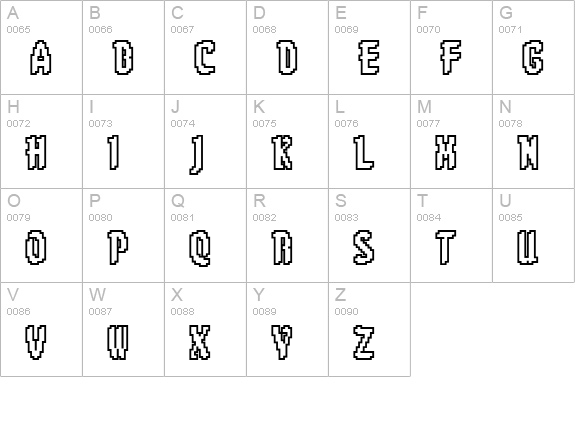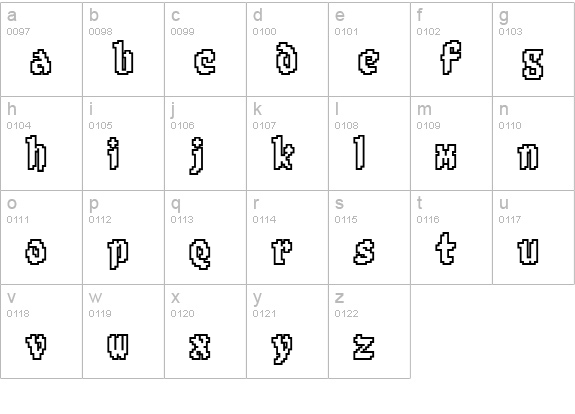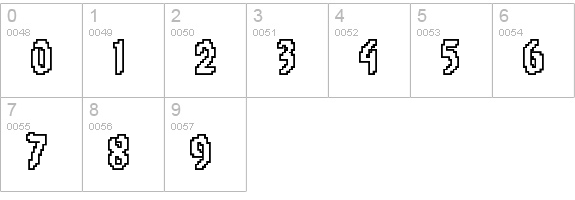
8-bit Limit O (BRK) Font Details
The 8-bit Limit O (BRK) font is a charming and nostalgic typeface that takes inspiration from classic video game graphics. With its pixelated design and retro aesthetic, this font is perfect for adding a touch of old-school flair to your projects. Whether you're creating game-inspired designs or looking to evoke a sense of nostalgia, the 8-bit Limit O (BRK) font is sure to impress. Best of all, this font is available for free download at FontsMarket.com, making it easily accessible for all your creative endeavors. Embrace the vintage charm of the 8-bit Limit O (BRK) font and transport your audience back to the golden age of gaming with every letter and character.